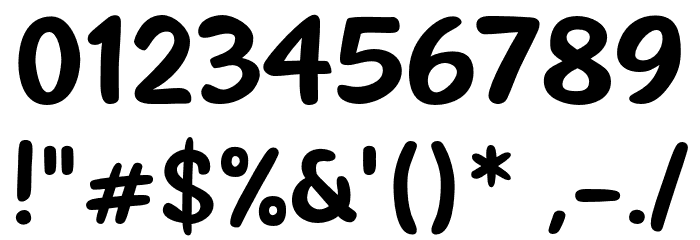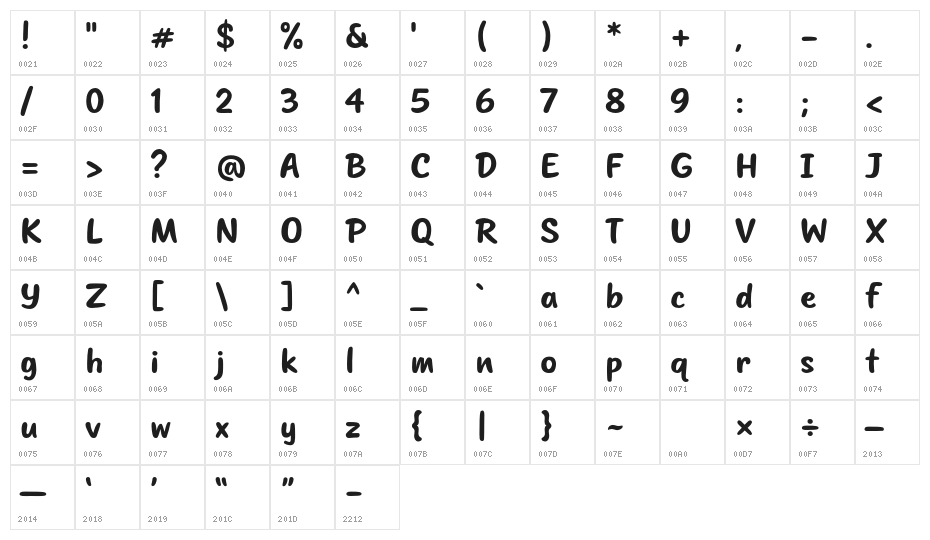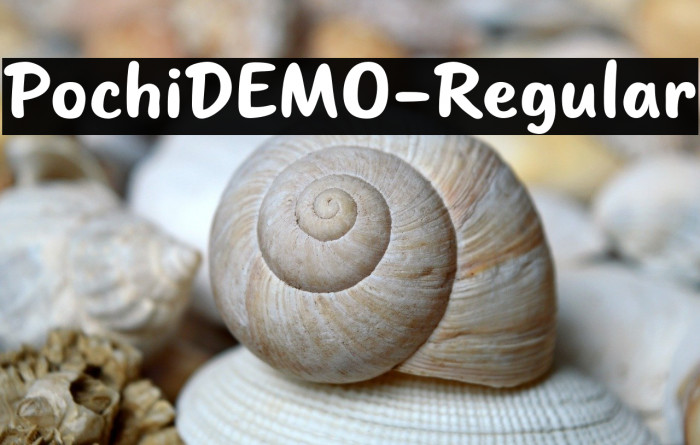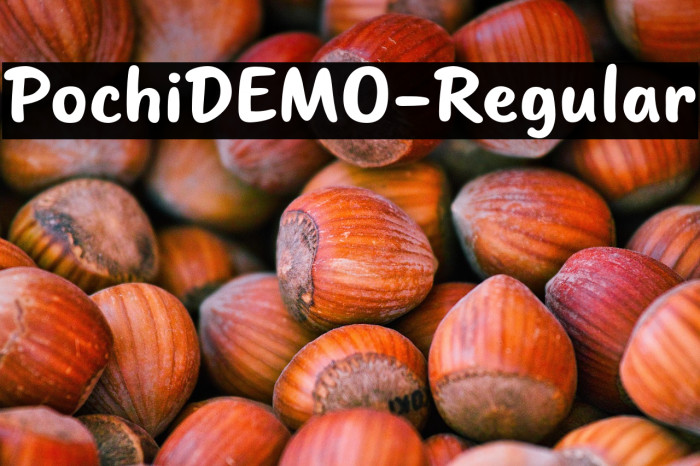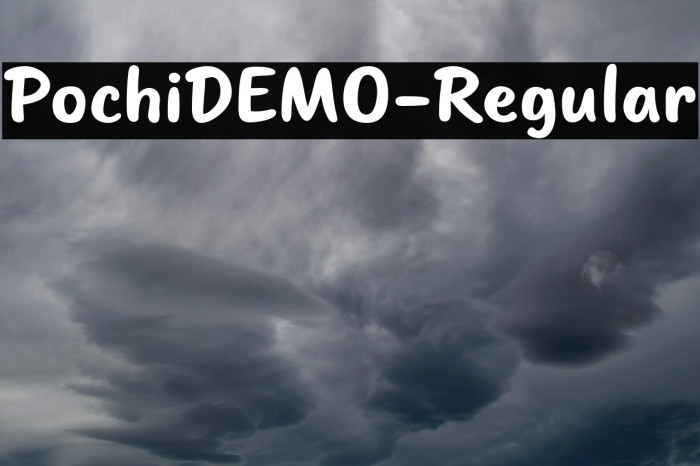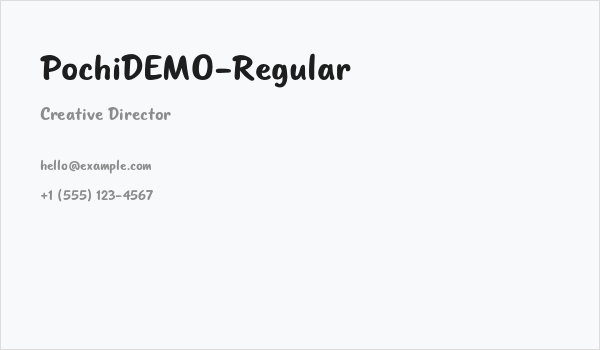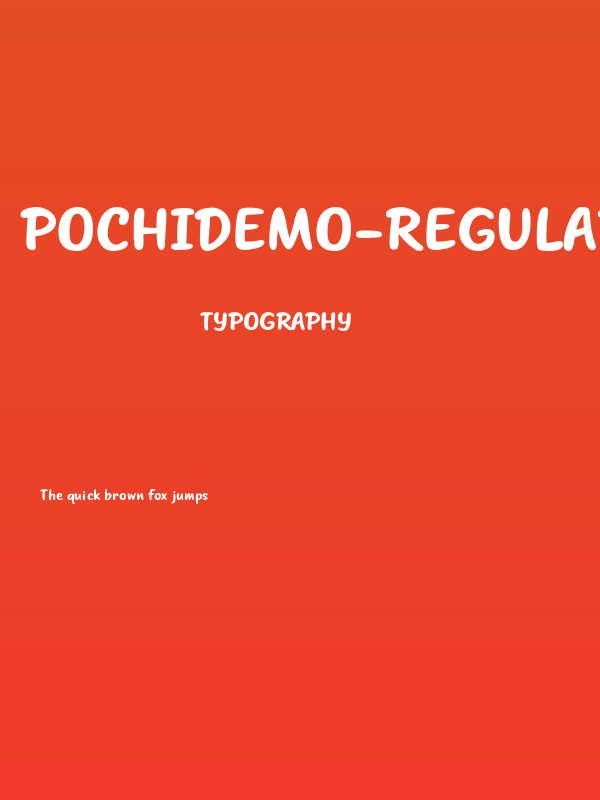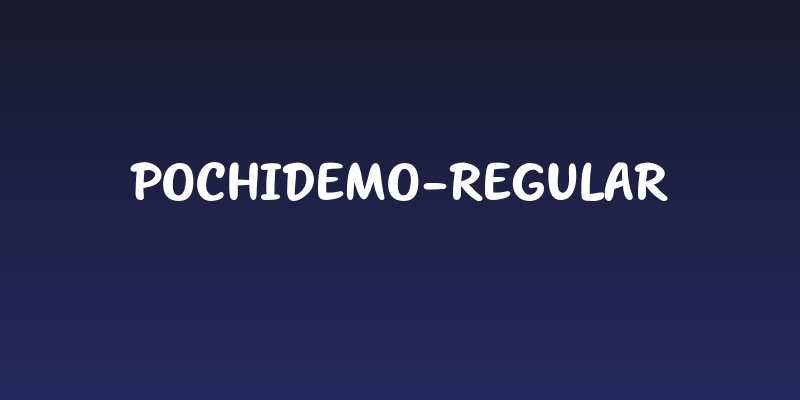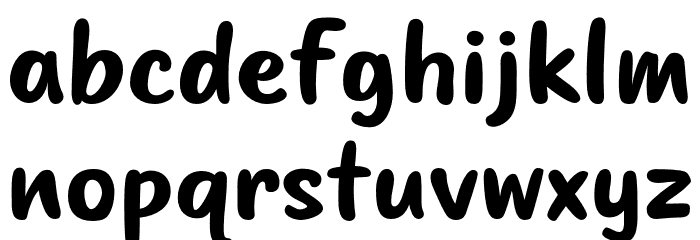
PochiDEMO-Regular Font
PochiDEMO-Regular Description
This playful and rounded font features a bold and friendly appearance, characterized by its smooth curves and consistent stroke width. The letters are slightly condensed, giving it a compact look while maintaining readability. The uppercase and lowercase letters share a cohesive style, with rounded edges that add a sense of warmth and approachability. The numerals and special characters are designed to match the overall aesthetic, making it suitable for a variety of informal and creative applications.
| Proposed Projects | Ideal for children's books, playful branding, casual invitations, and creative posters. |